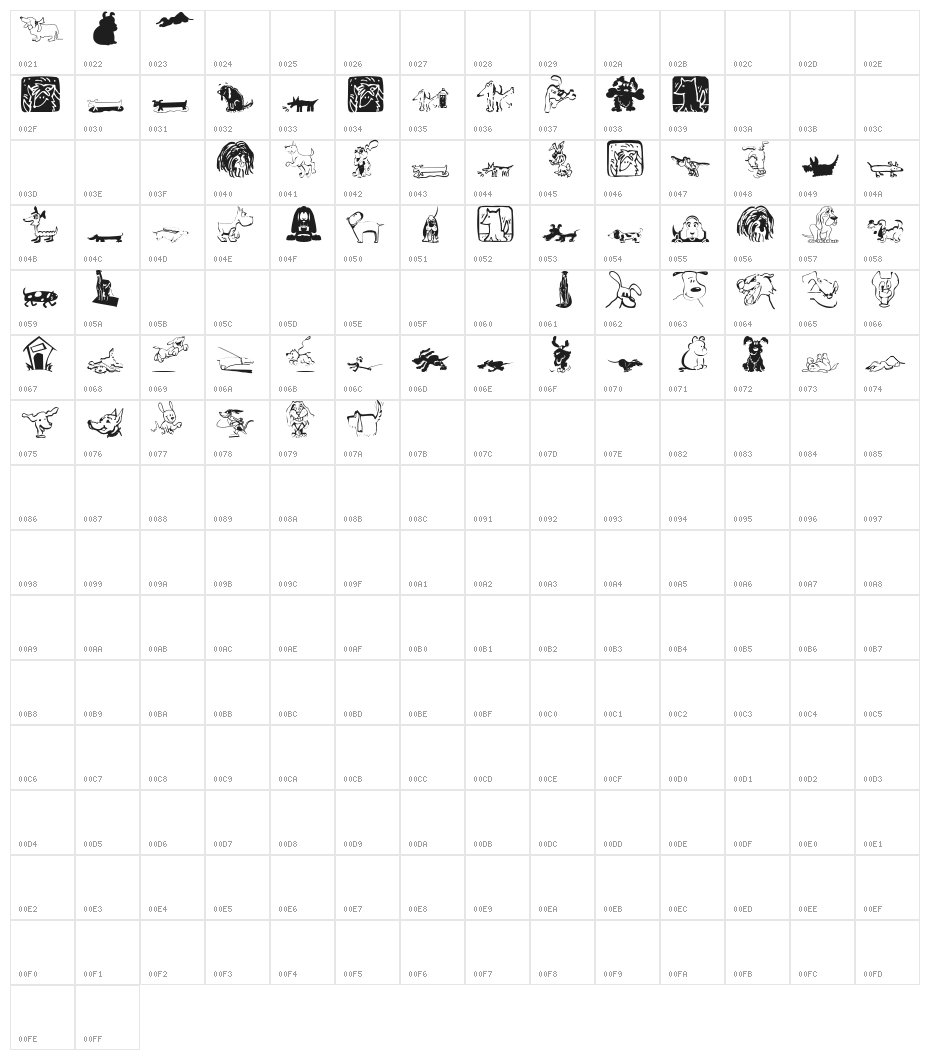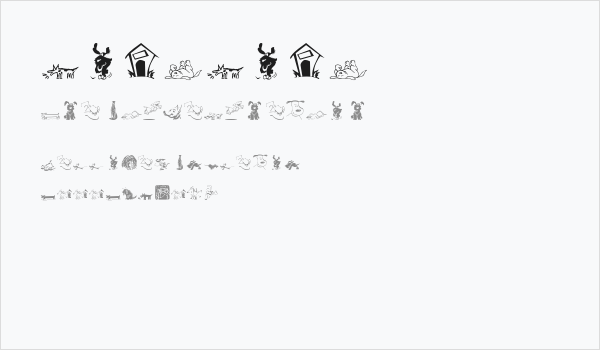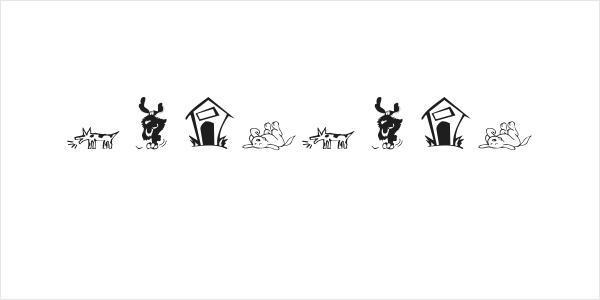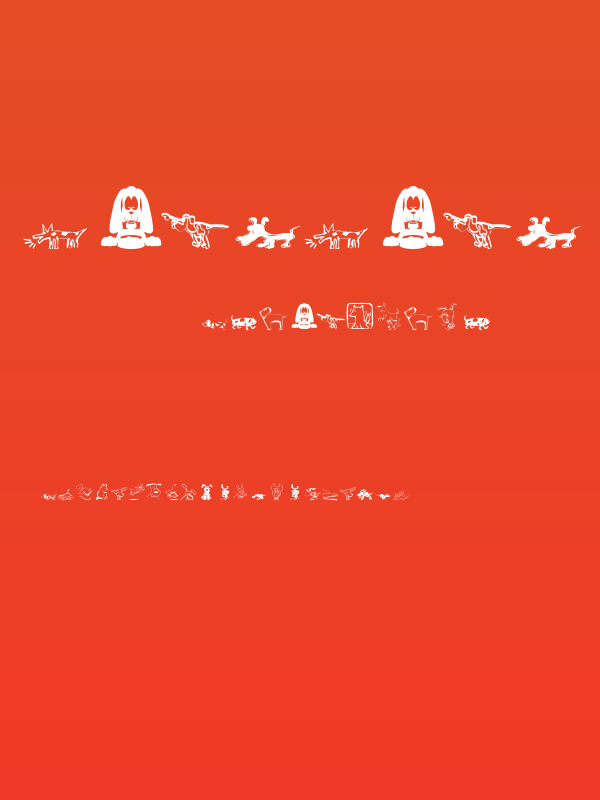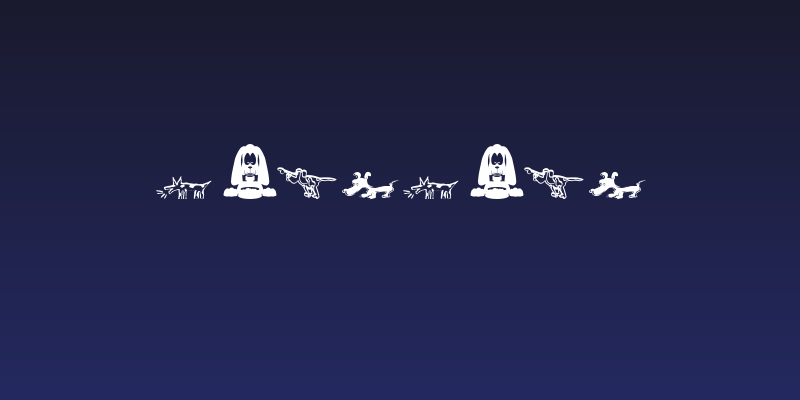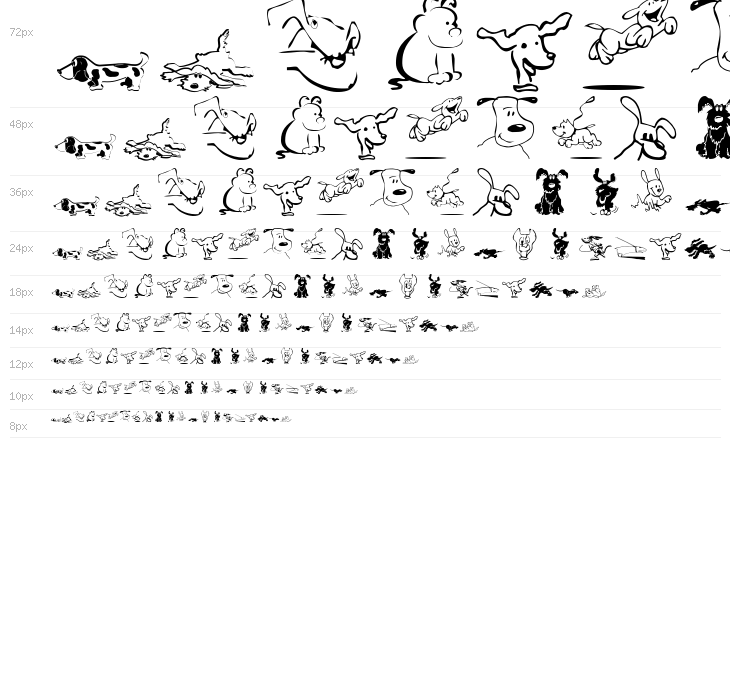
DogsDogs Font
DogsDogs Description
A playful and whimsical dingbat font featuring a variety of hand-drawn dog illustrations in different poses and styles, ranging from simple outlines to filled silhouettes and cartoonish depictions.
| Overall Style | Playful, Whimsical, Decorative |
| Use Case | Illustrative elements, Decorative accents, Themed graphics |
| Proposed Projects | Children's books, pet shop branding, greeting cards, playful posters, educational materials, scrapbooking. |